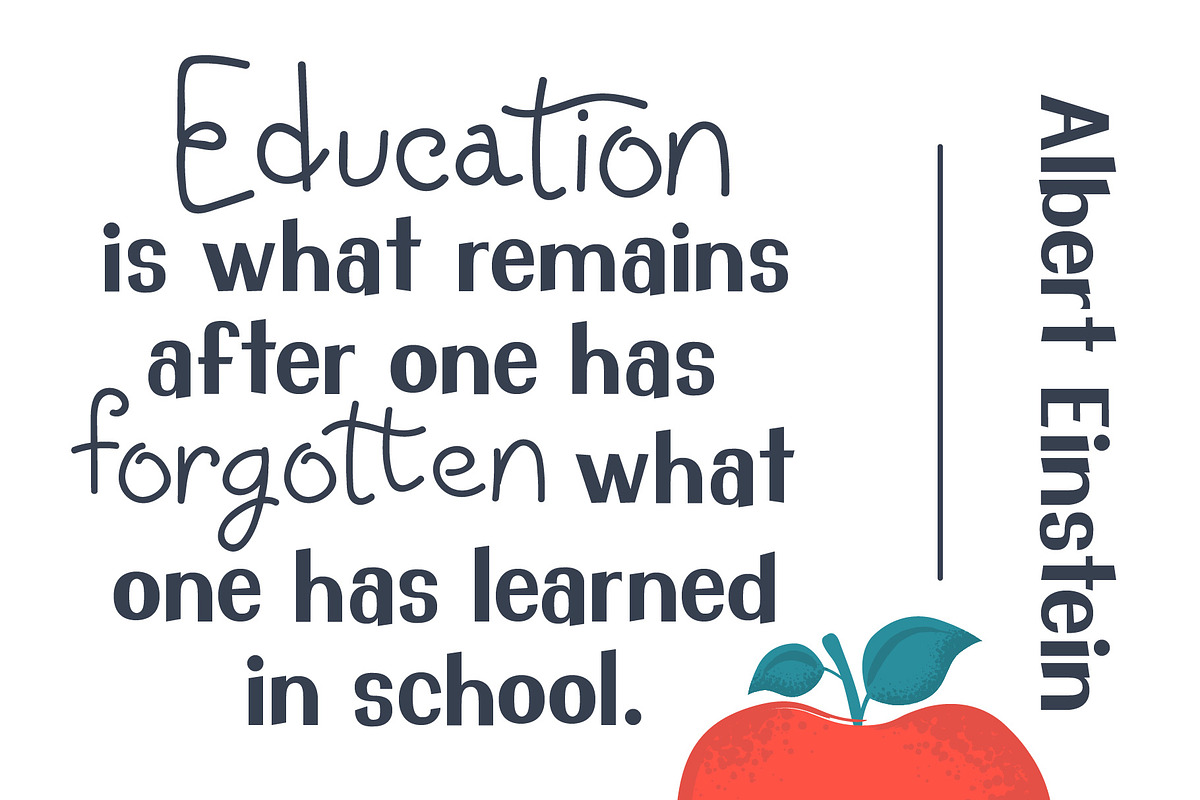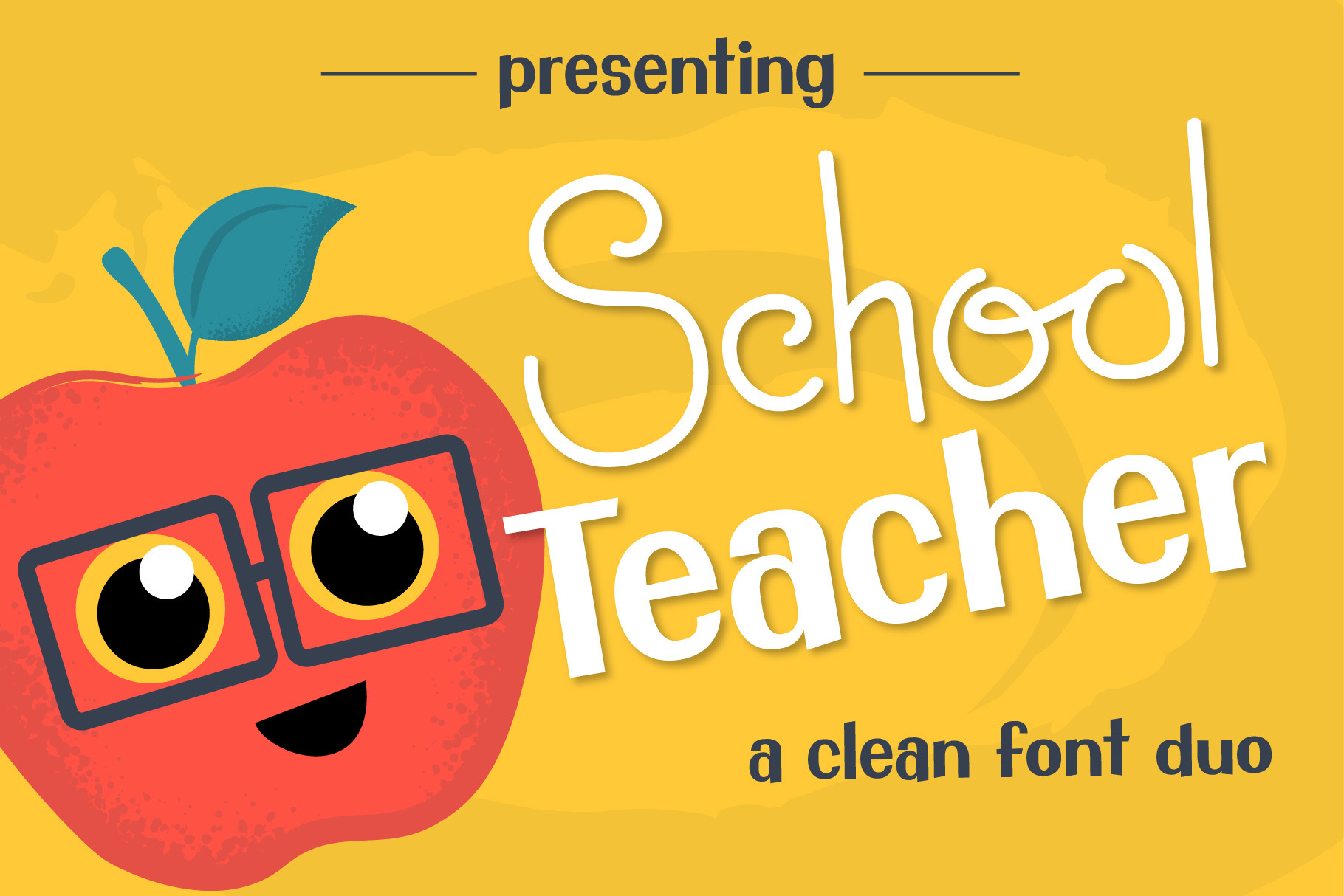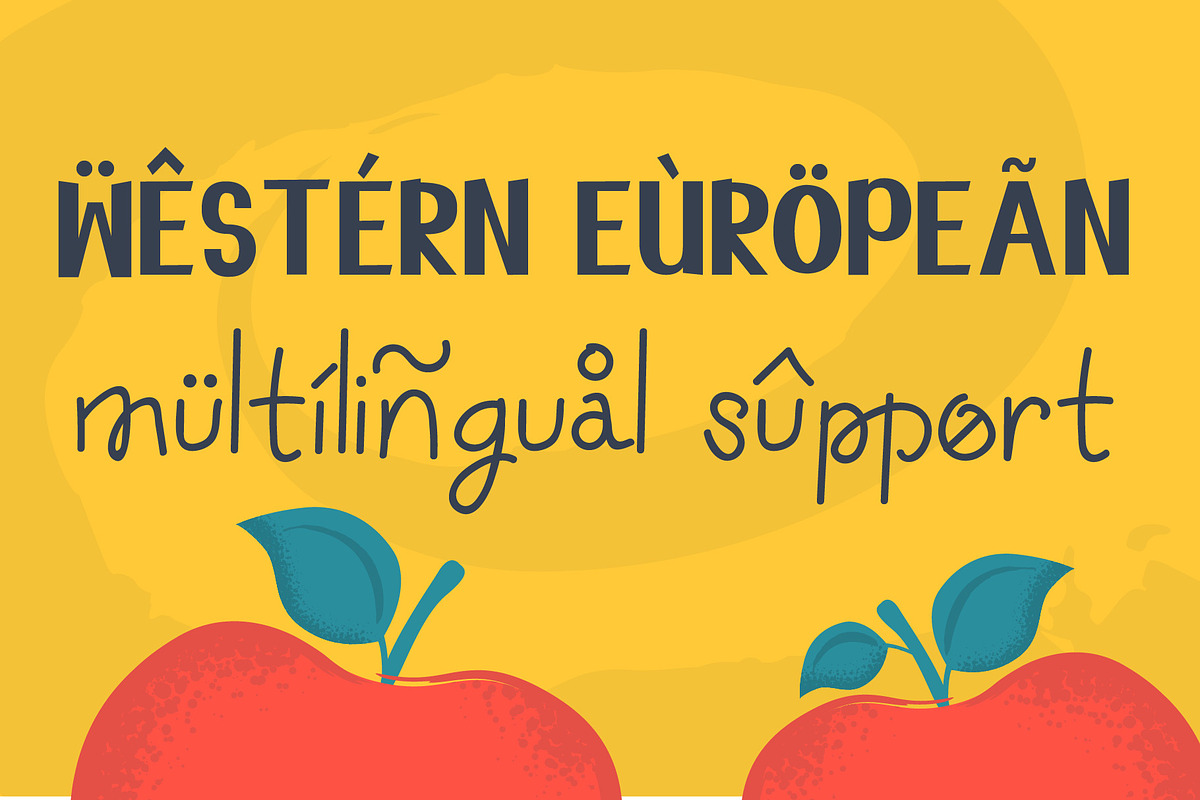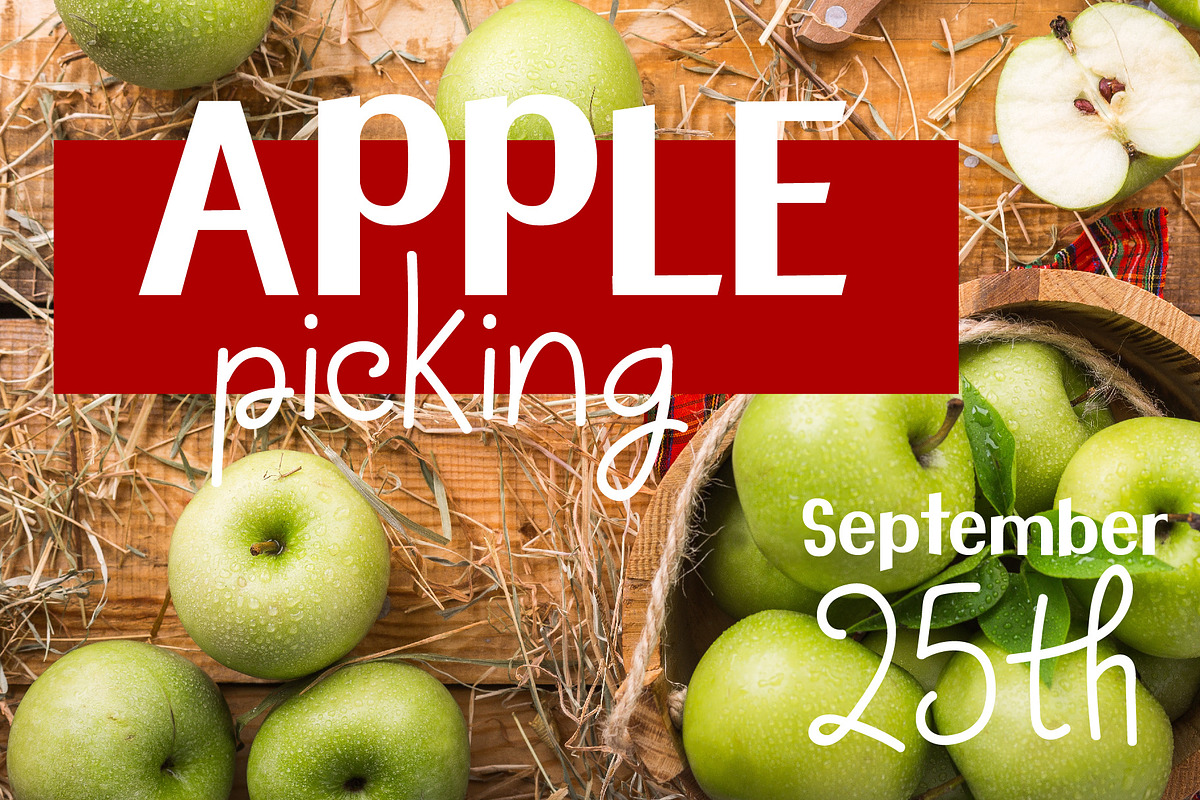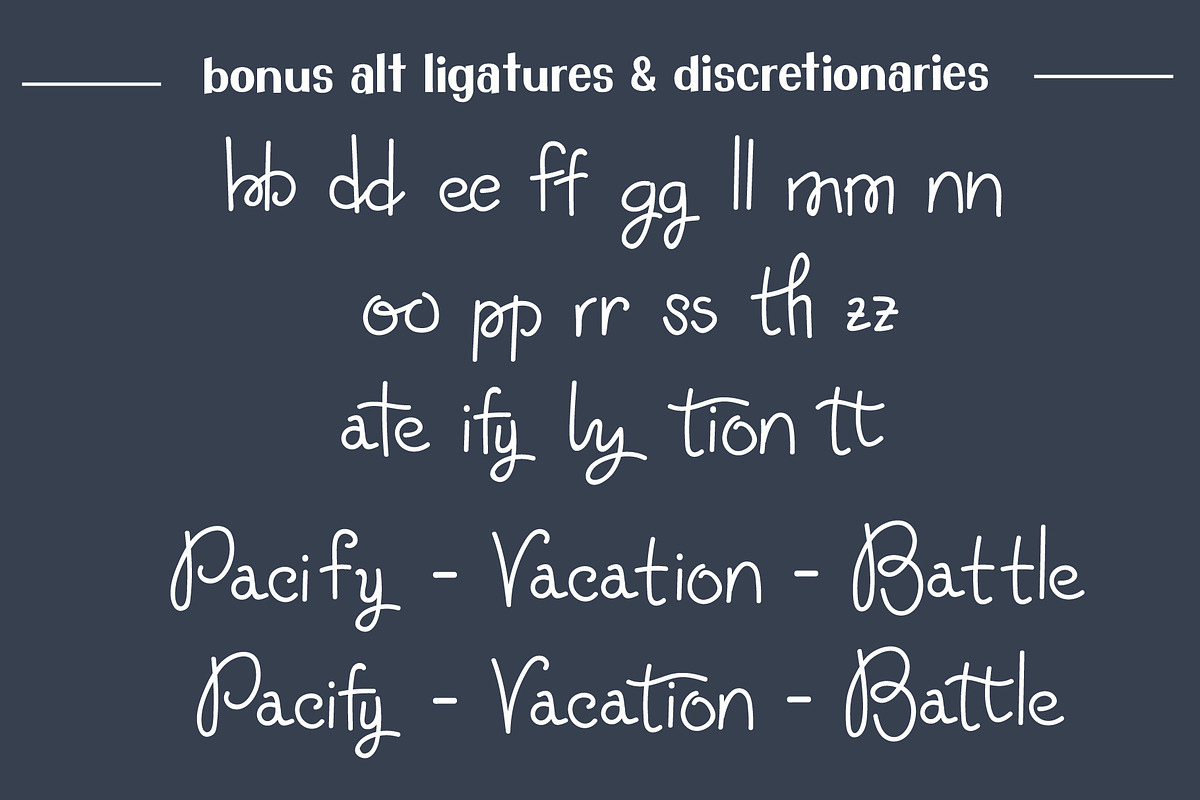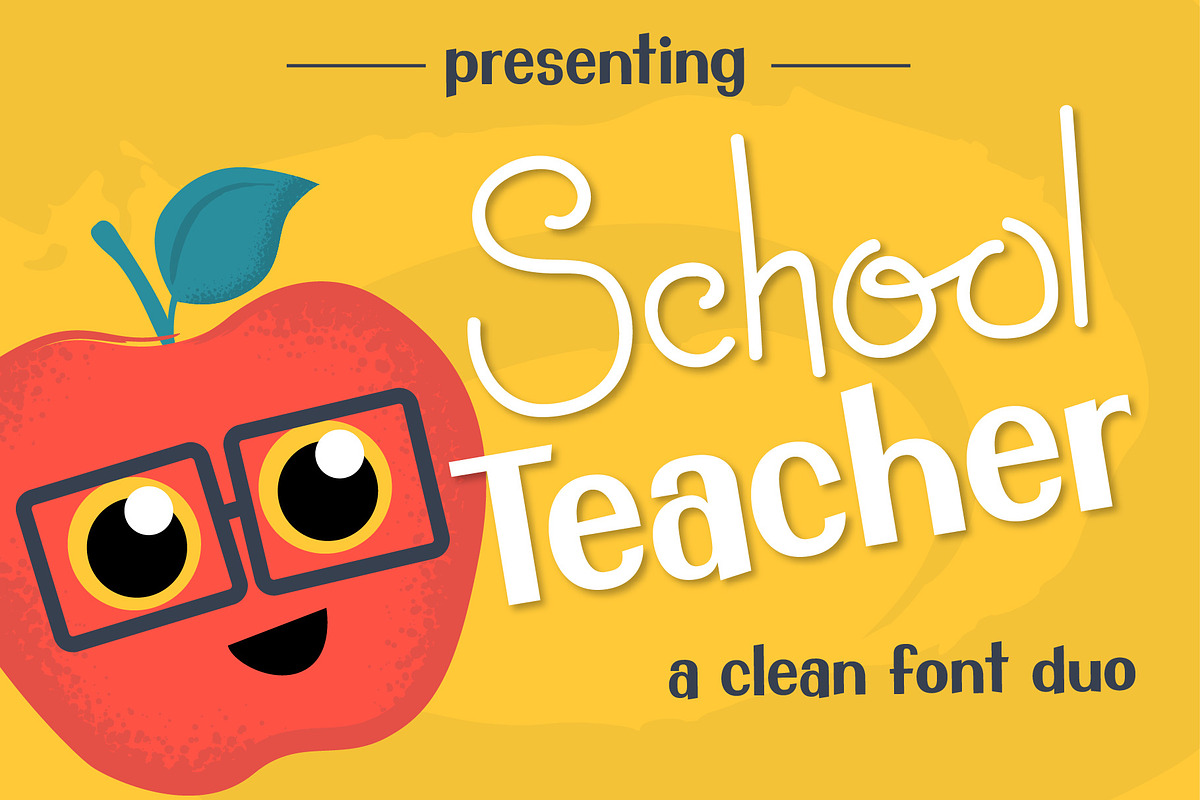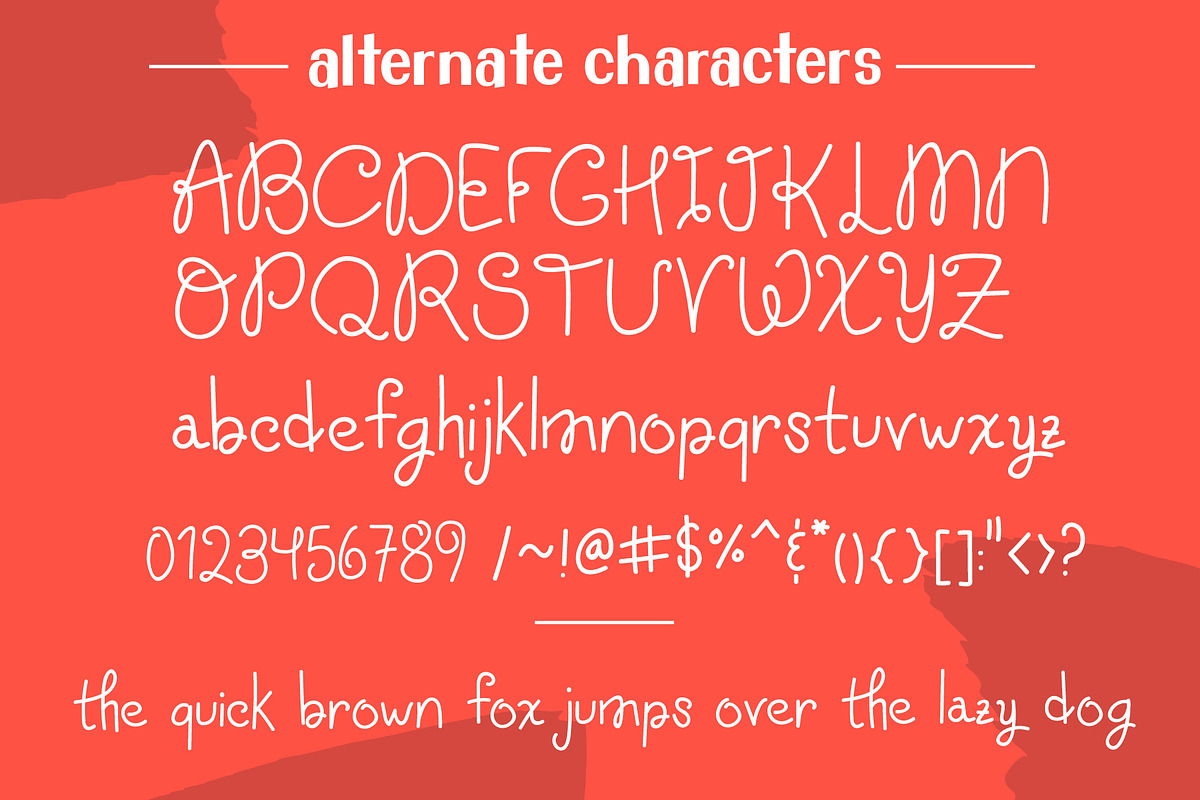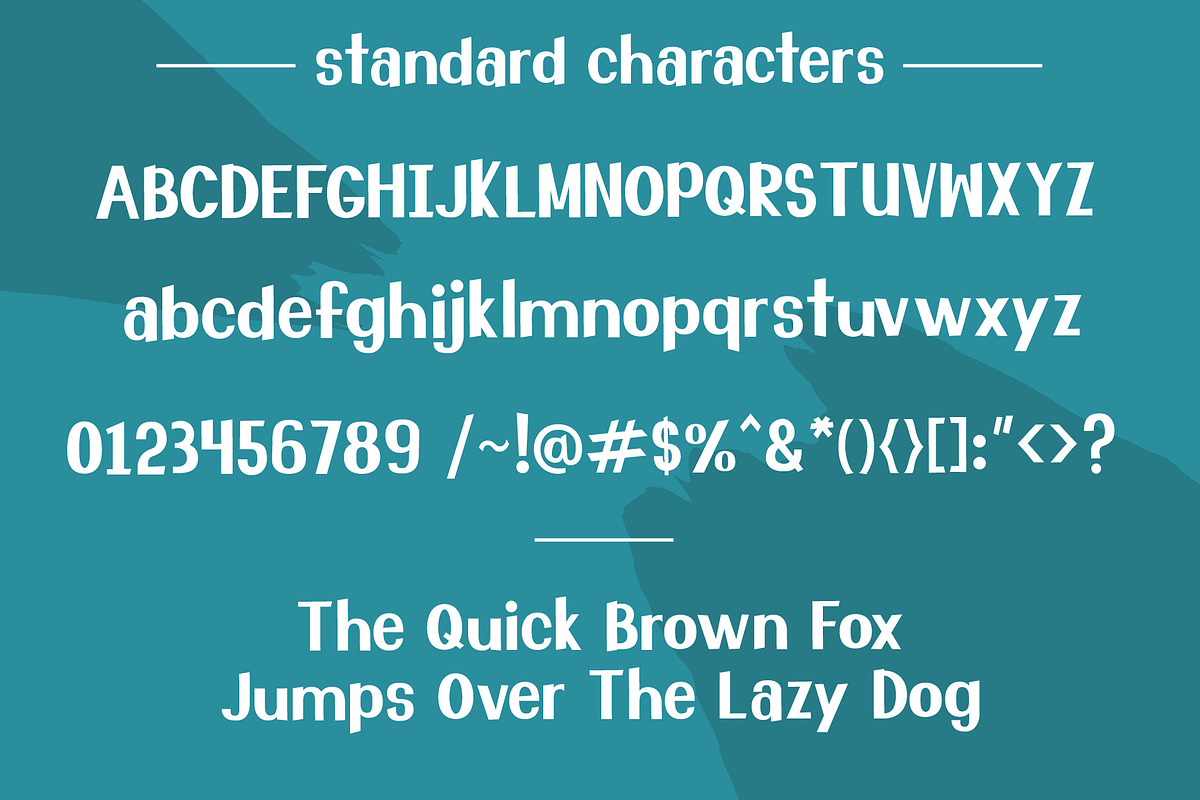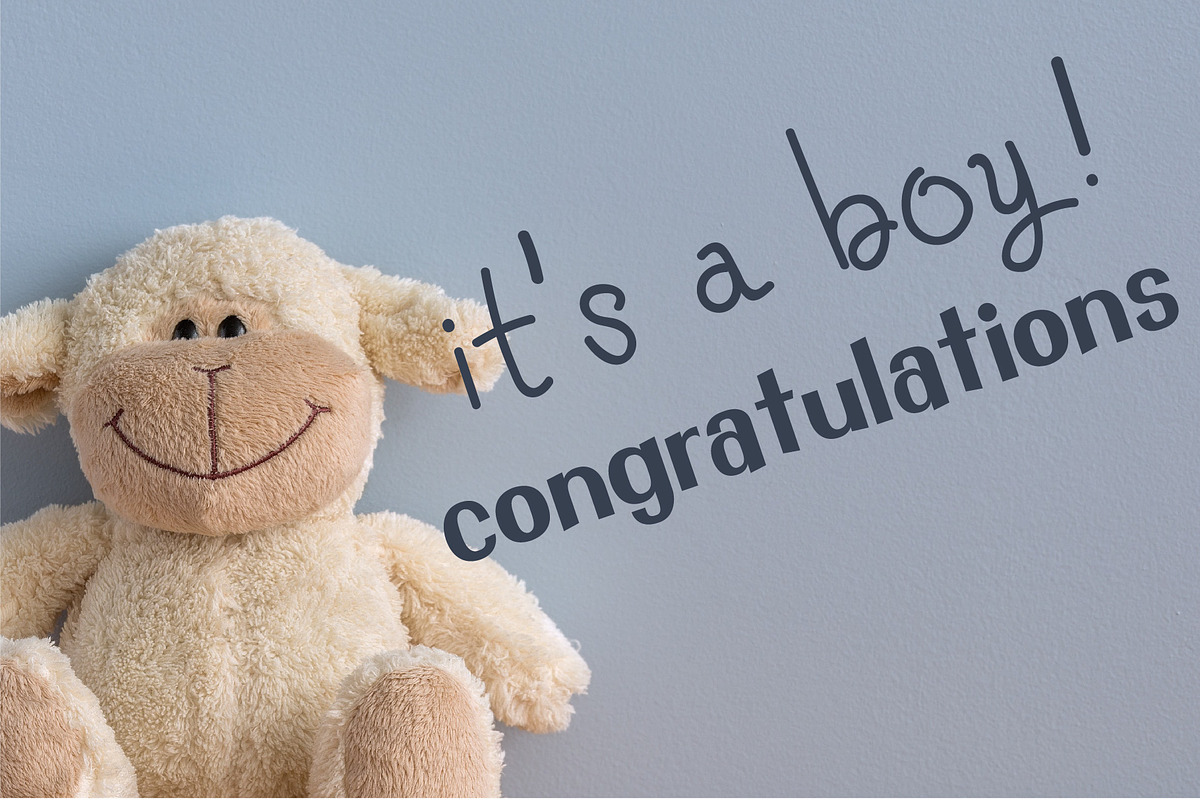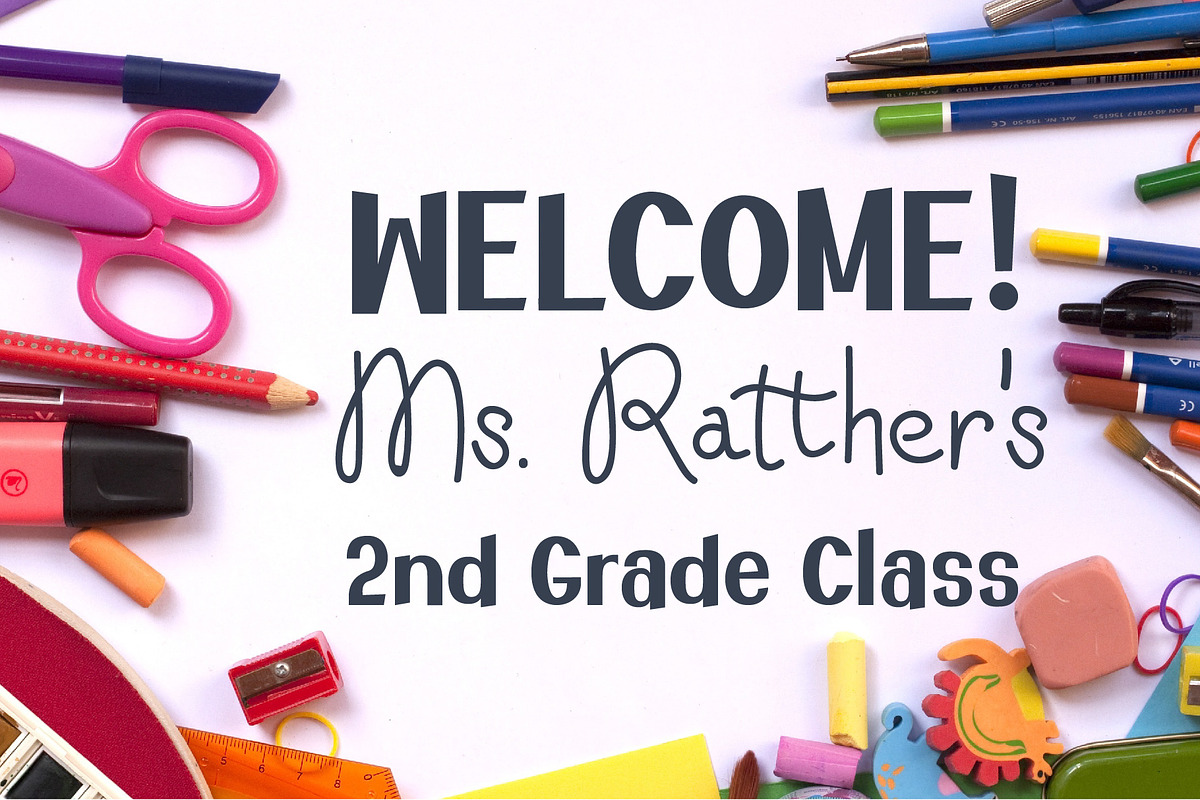
School Teacher Font Duo
Introducing, School Teacher Font Duo. A fun san serif font that was inspired by an elementary school and children's book. This PUA font is perfect for professional designer, social media, or crafters.